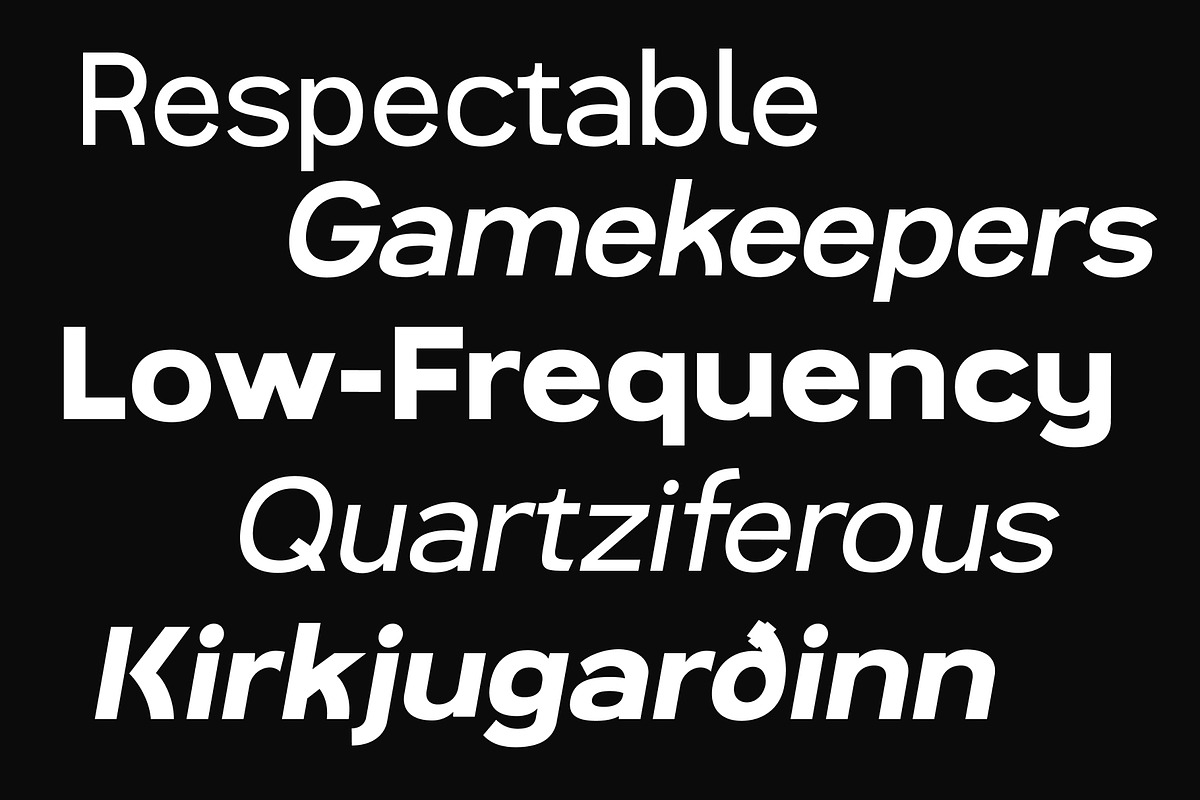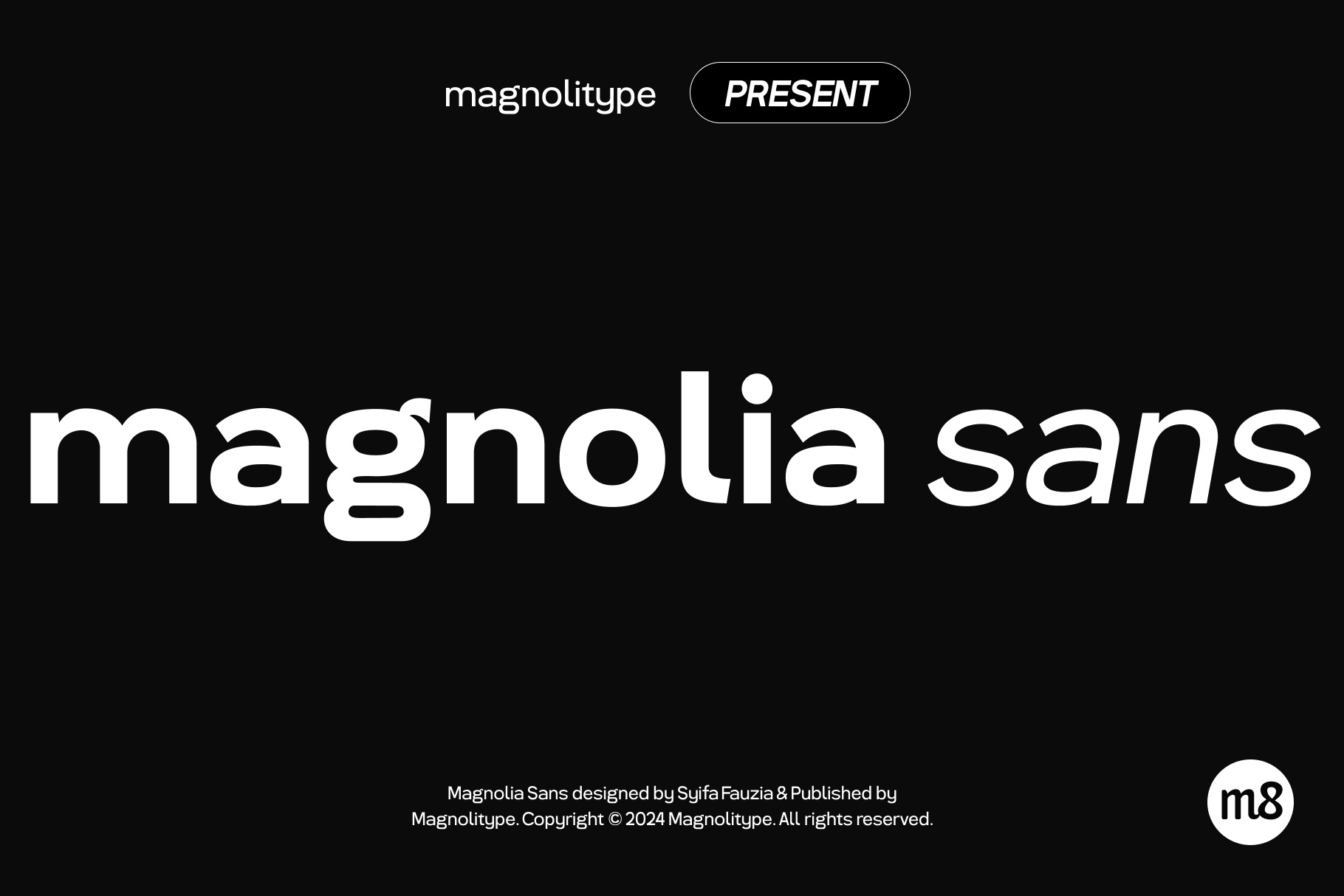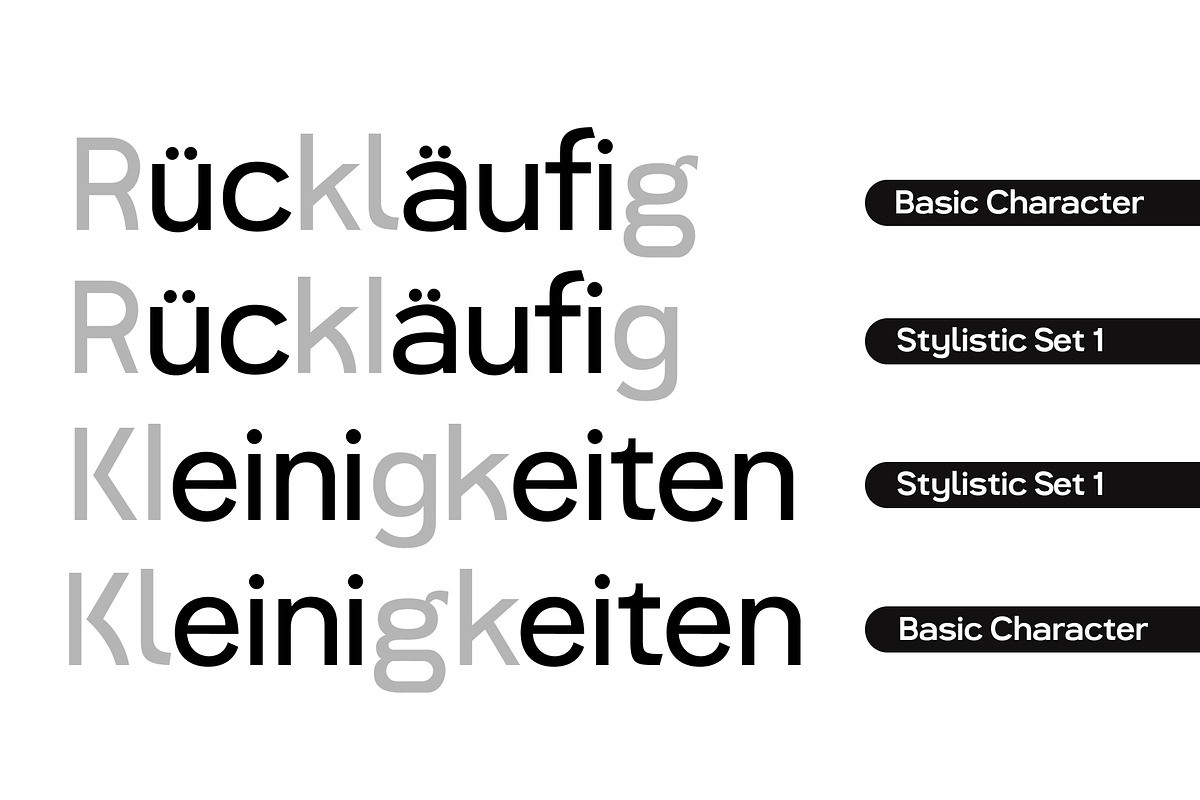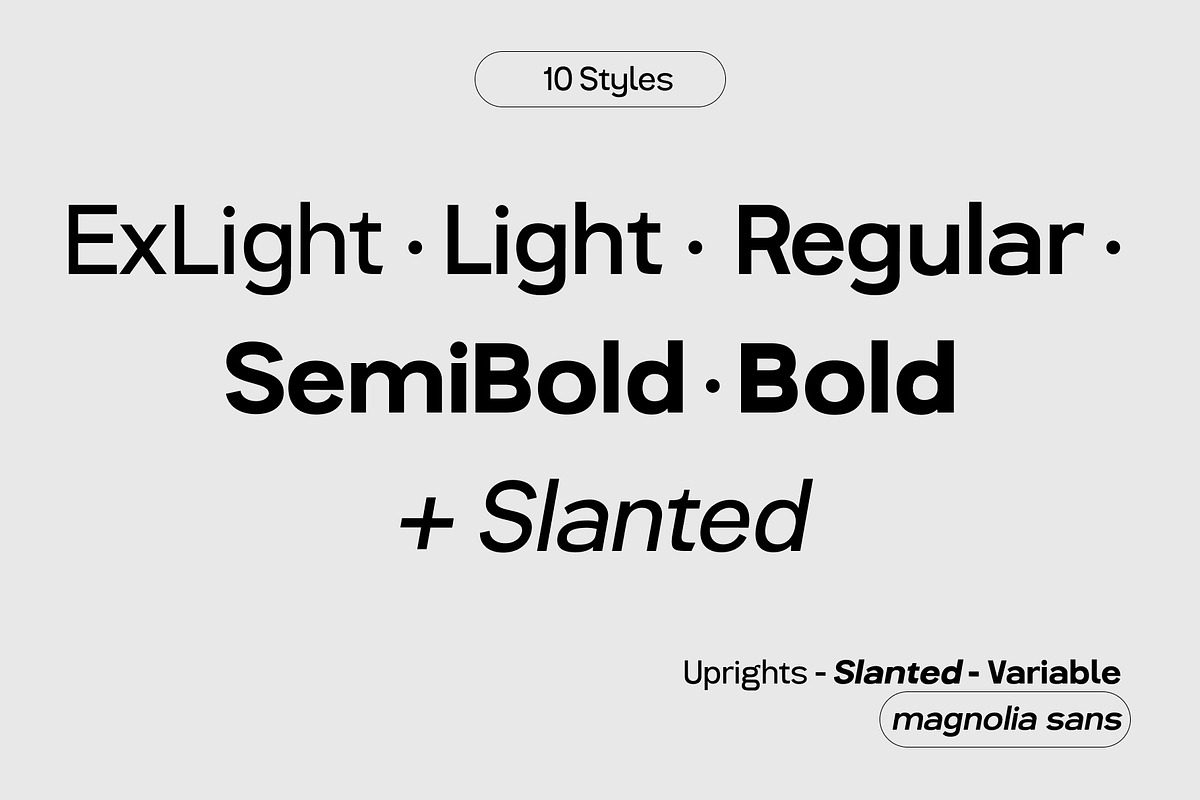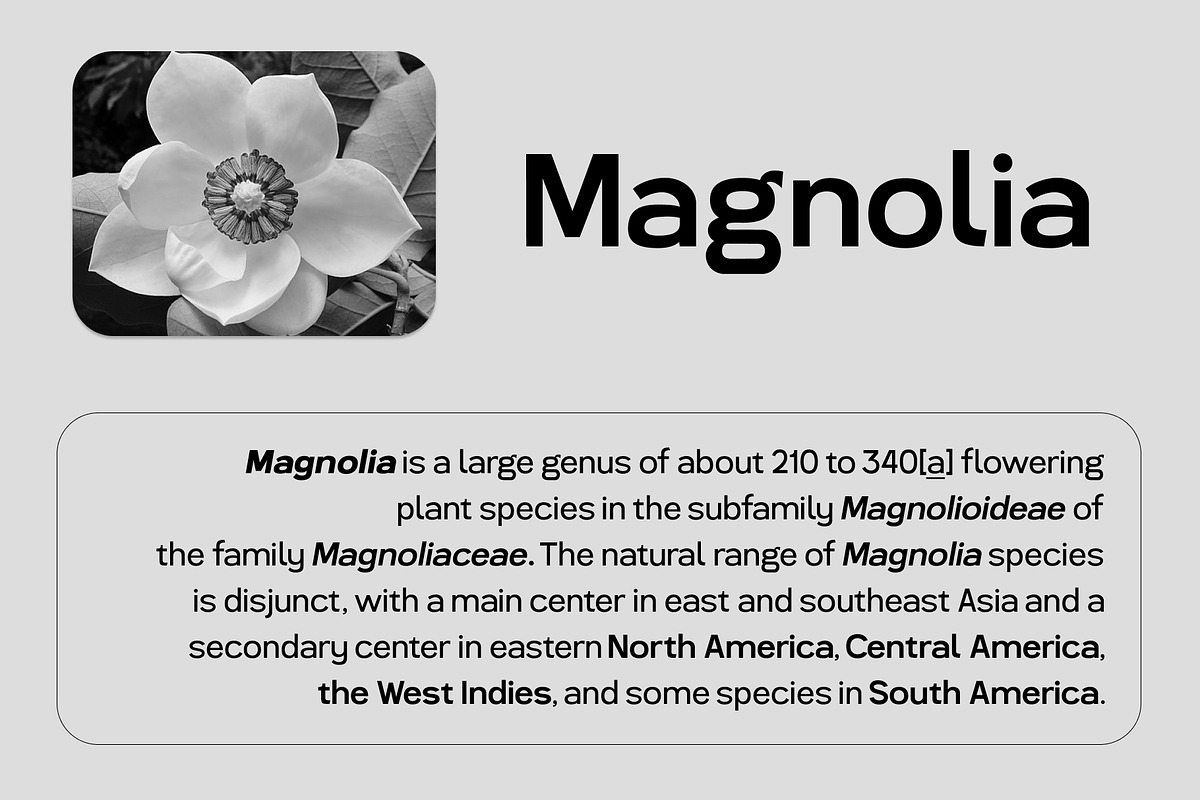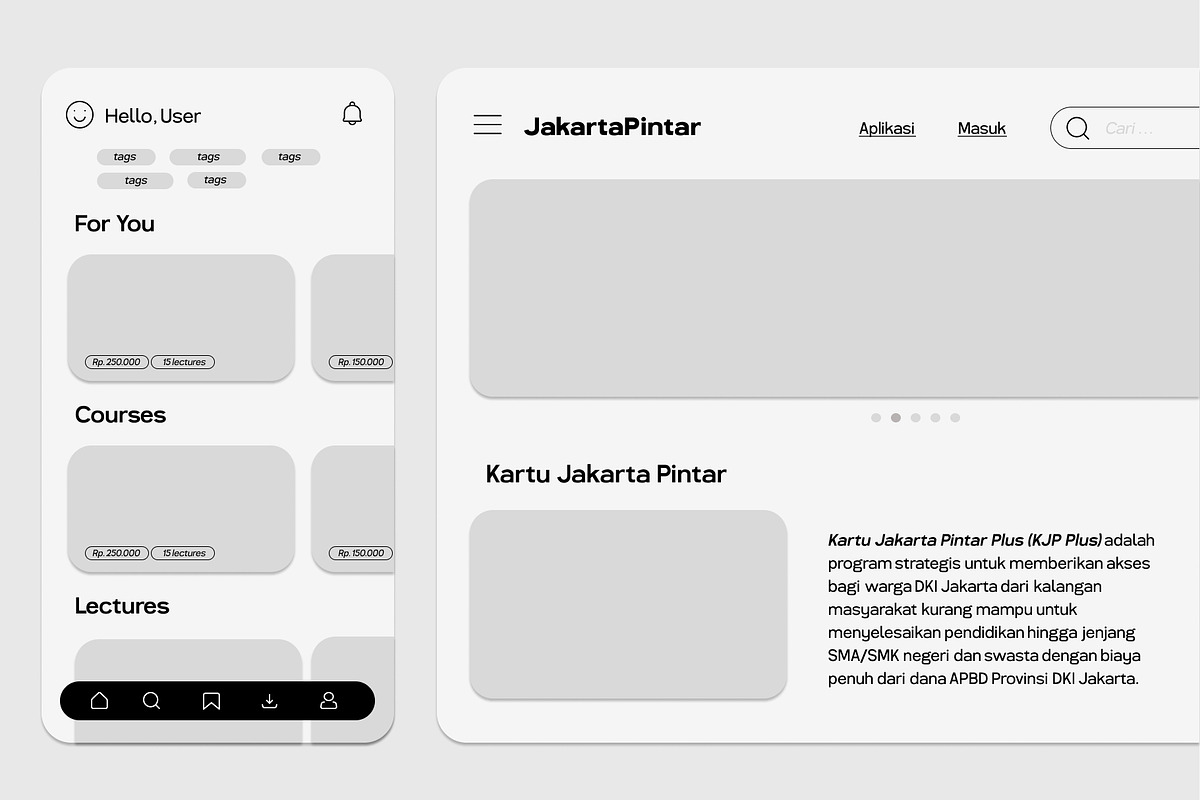
Magnolia Sans Geometric Font Family
Magnolia Sans is a captivating geometric typeface family that effortlessly merges modern simplicity with timeless elegance. Crafted with meticulous attention to detail, it embodies a harmonious balance between clean lines and subtle curves, making it an ideal choice for a wide array of design applications.
- Variable Weight
- OpenType
- Stylistic Alternate
- Multilingual Suppport